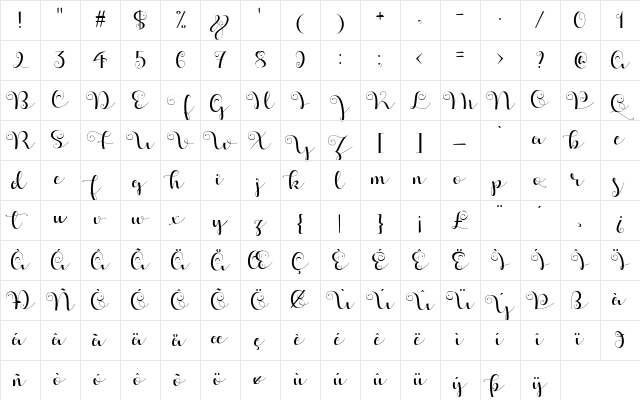
Apples Script Demo Regular
Foundry: Misti's Fonts
Designer: Misti's Fonts
Complete Apples Script Demo Regular glyph index. Displaying only characters natively supported by Apples Script Demo Regular font.
Design Context for Apples Script Demo
Apples Script Demo flows with the natural rhythm of handwritten lettering, making it ideal for designs that call for warmth and personal expression.
Font Pairing: Combine Apples Script Demo with a simple geometric sans for maximum contrast - the tension between flowing curves and clean structure is a classic typographic pairing.
Pro Tip: Use Apples Script Demo for short runs of text - names, titles, or taglines. Extended body copy in script faces tires the eye quickly.